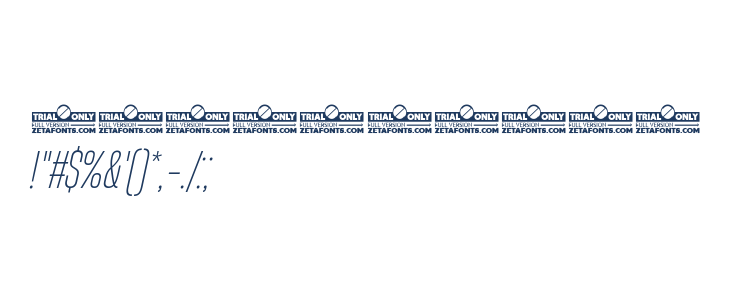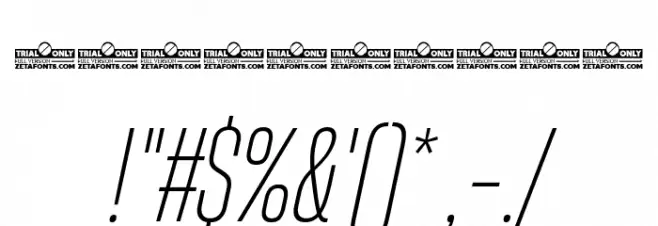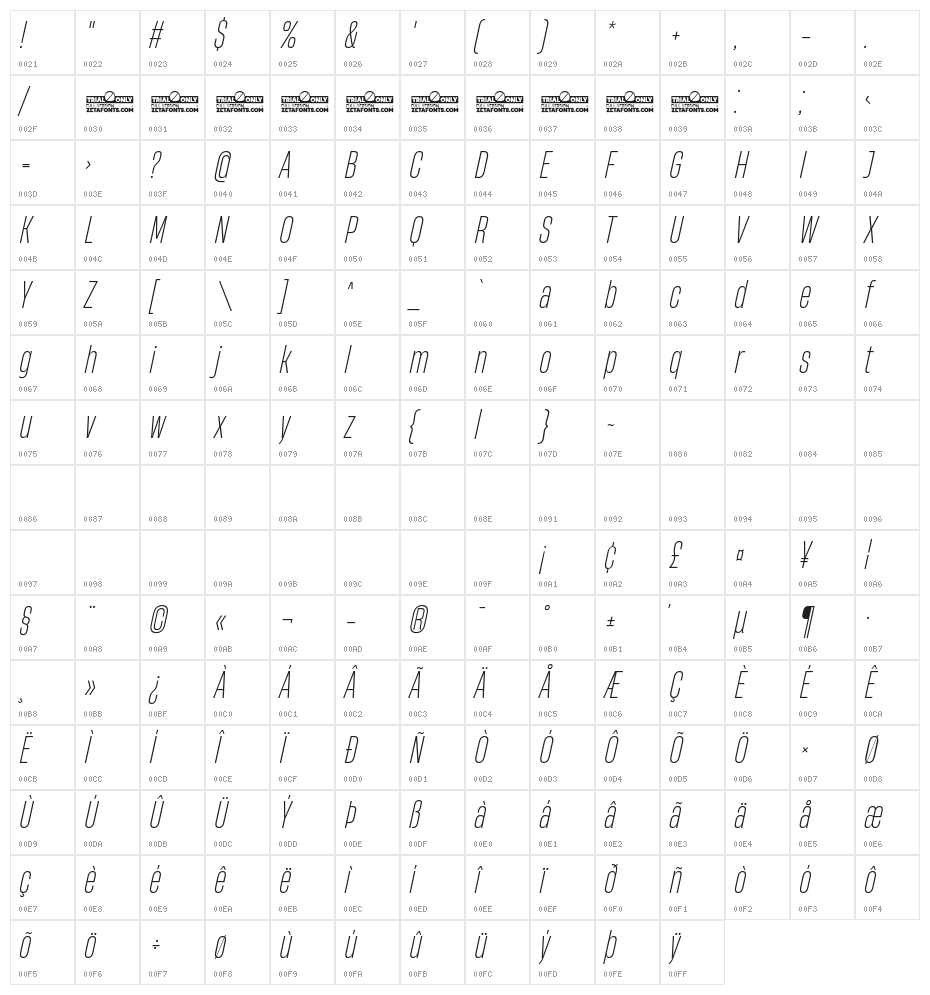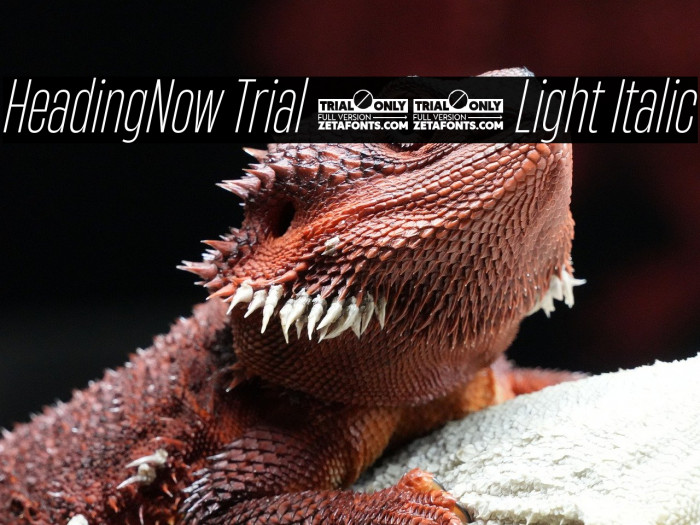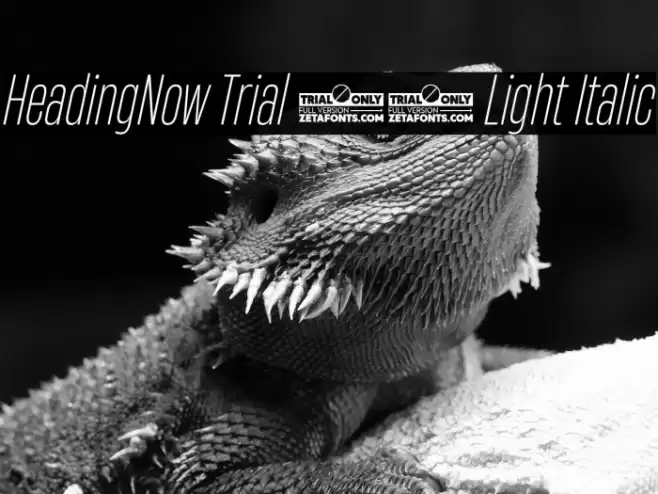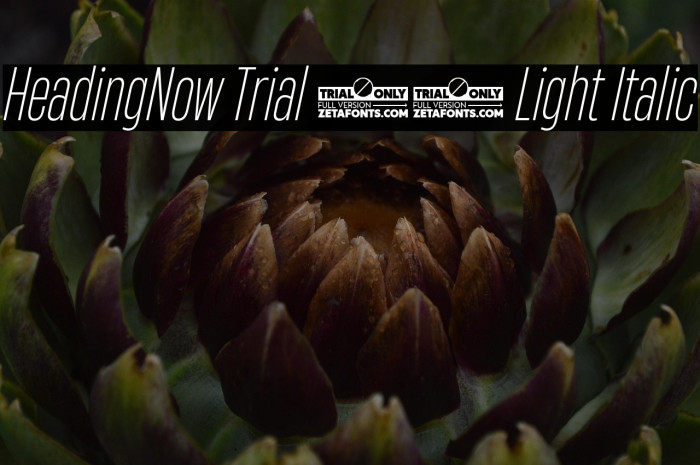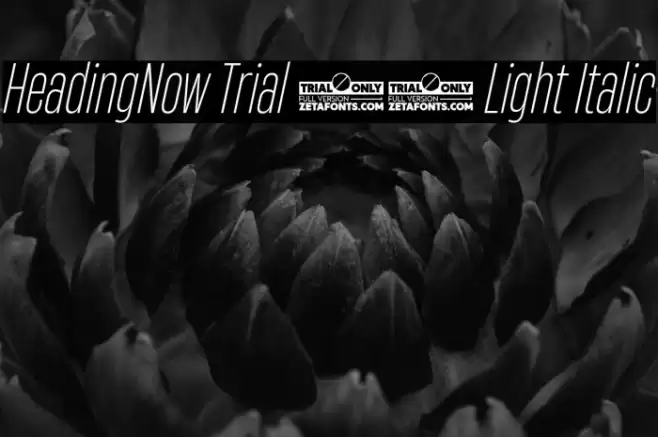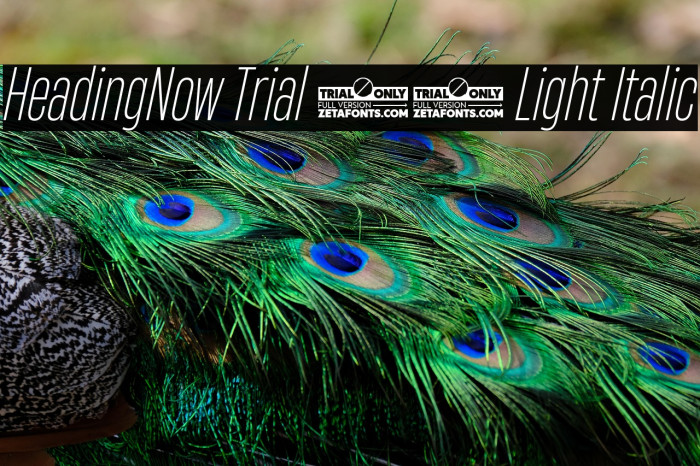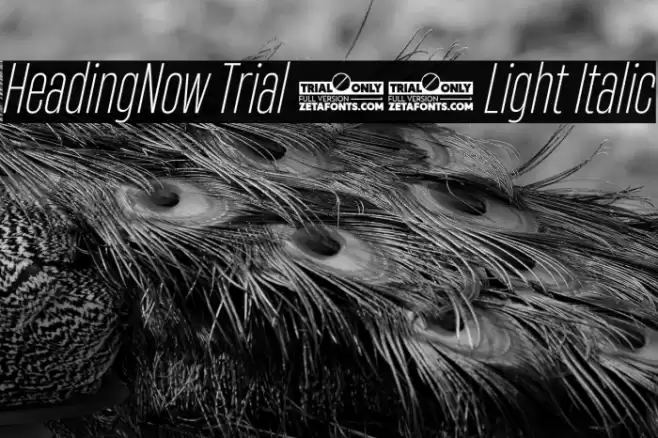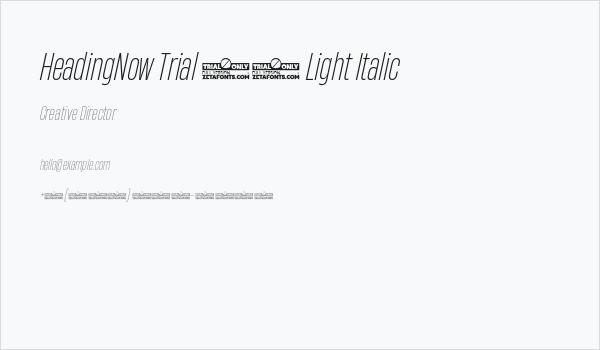
HeadingNow Trial 32 Light Italic Font
HeadingNow Trial 32 Light Italic Description
This font exhibits a sleek and modern design with elongated, narrow characters that convey a sense of elegance and sophistication. The italic style adds a dynamic and fluid touch, enhancing its contemporary appeal. The light weight contributes to a delicate and airy appearance, making it suitable for projects that require a refined and understated look. The characters are well-proportioned, with a consistent stroke width that maintains readability while adding a stylish flair. The font's overall aesthetic is clean and minimalistic, making it versatile for various design applications.